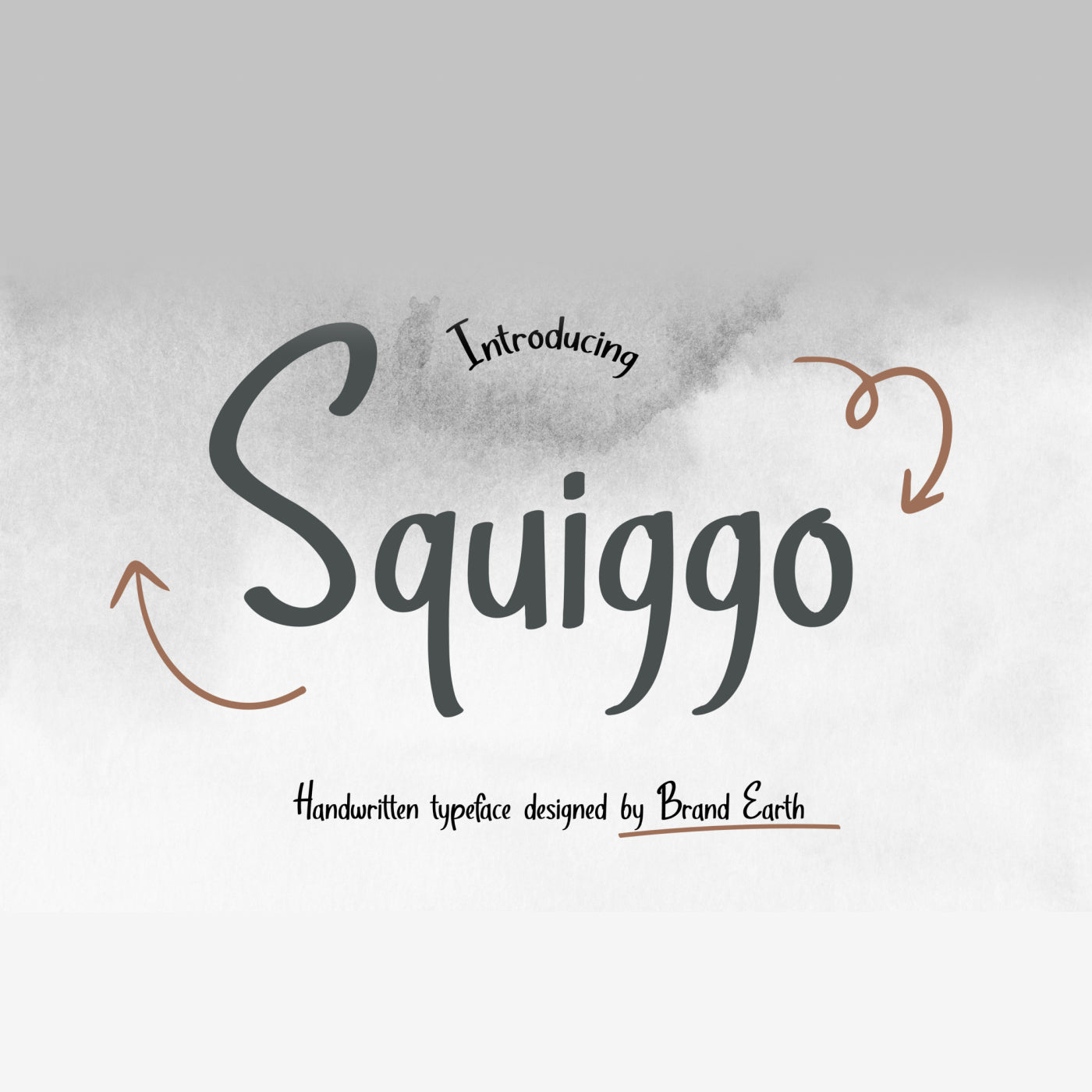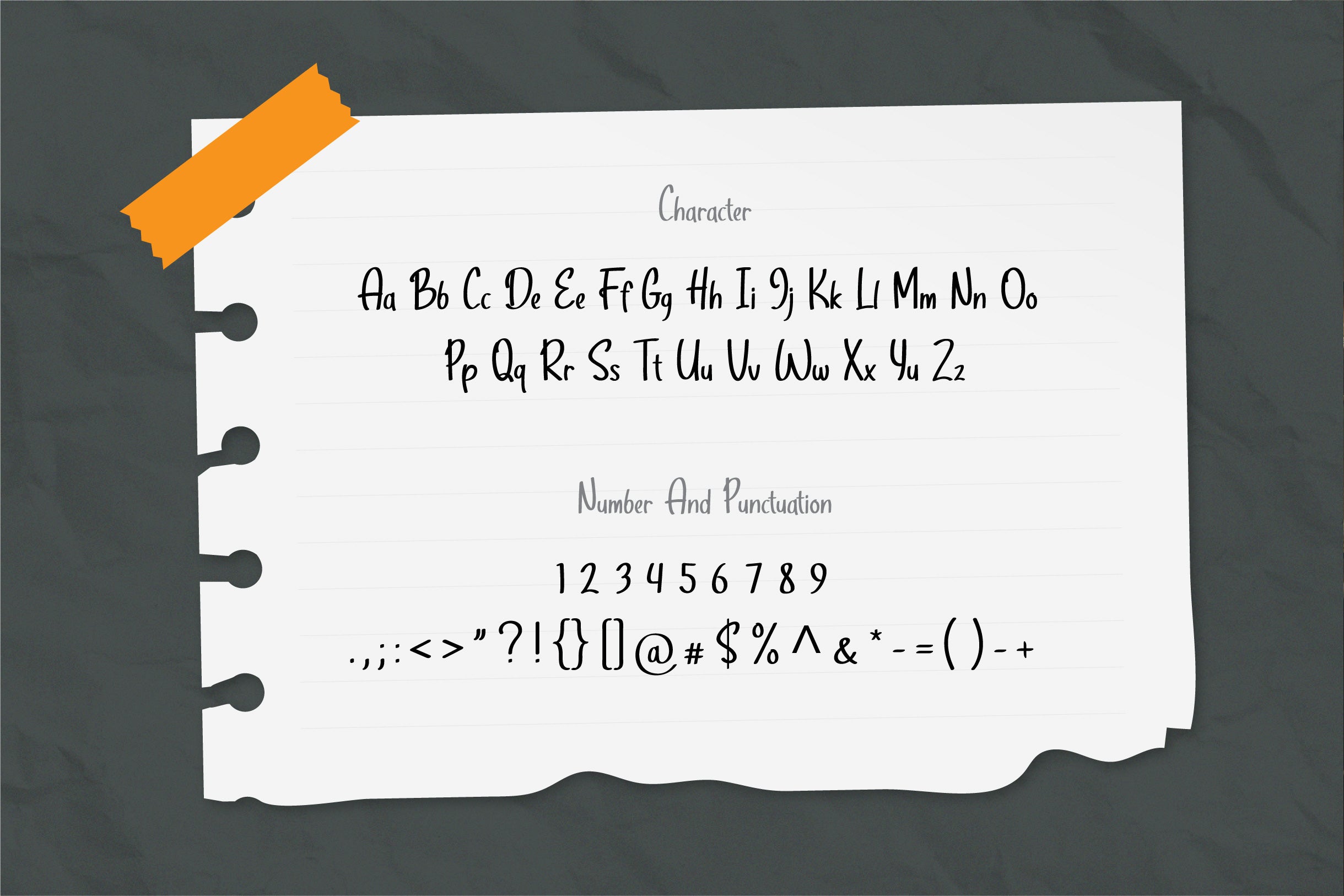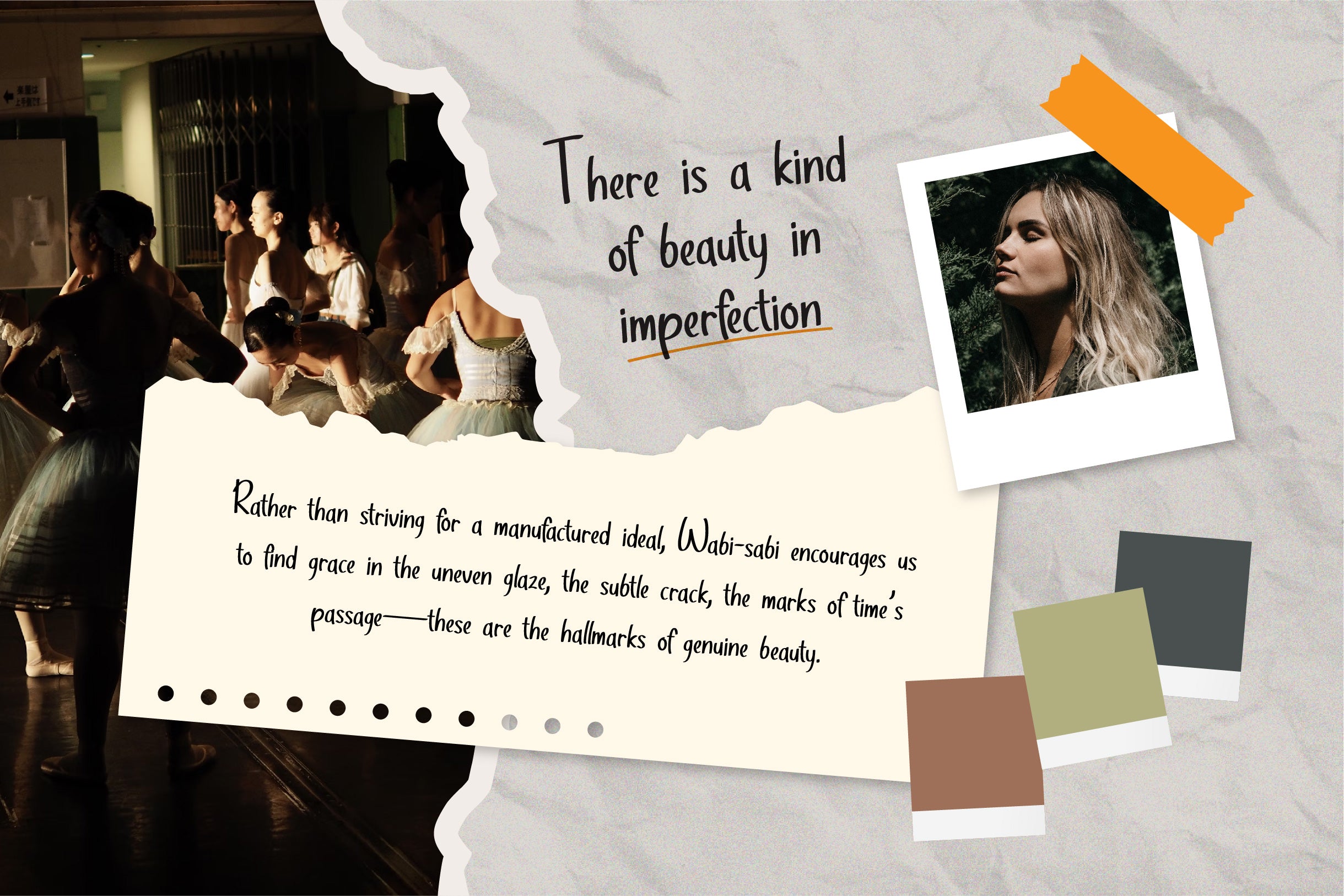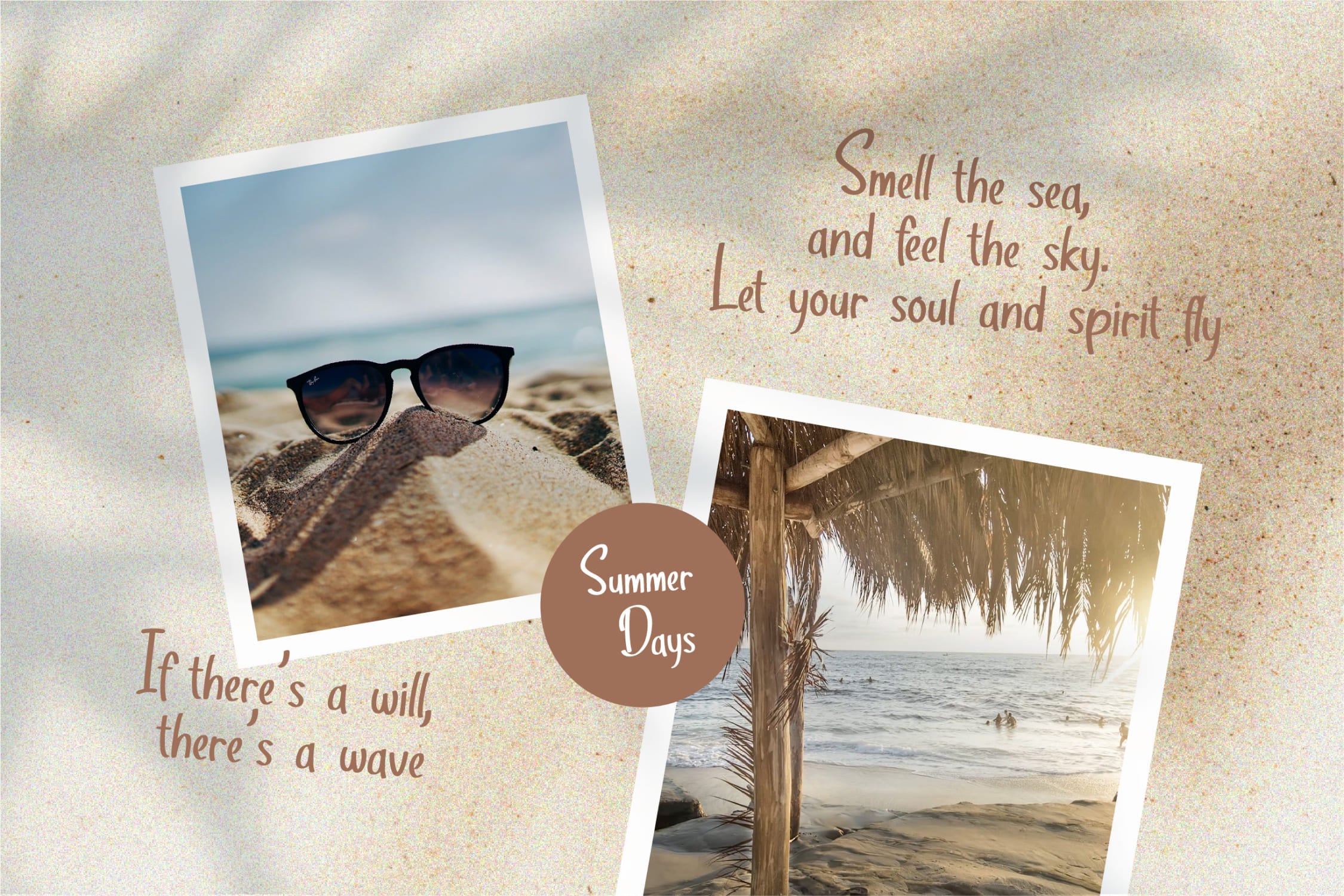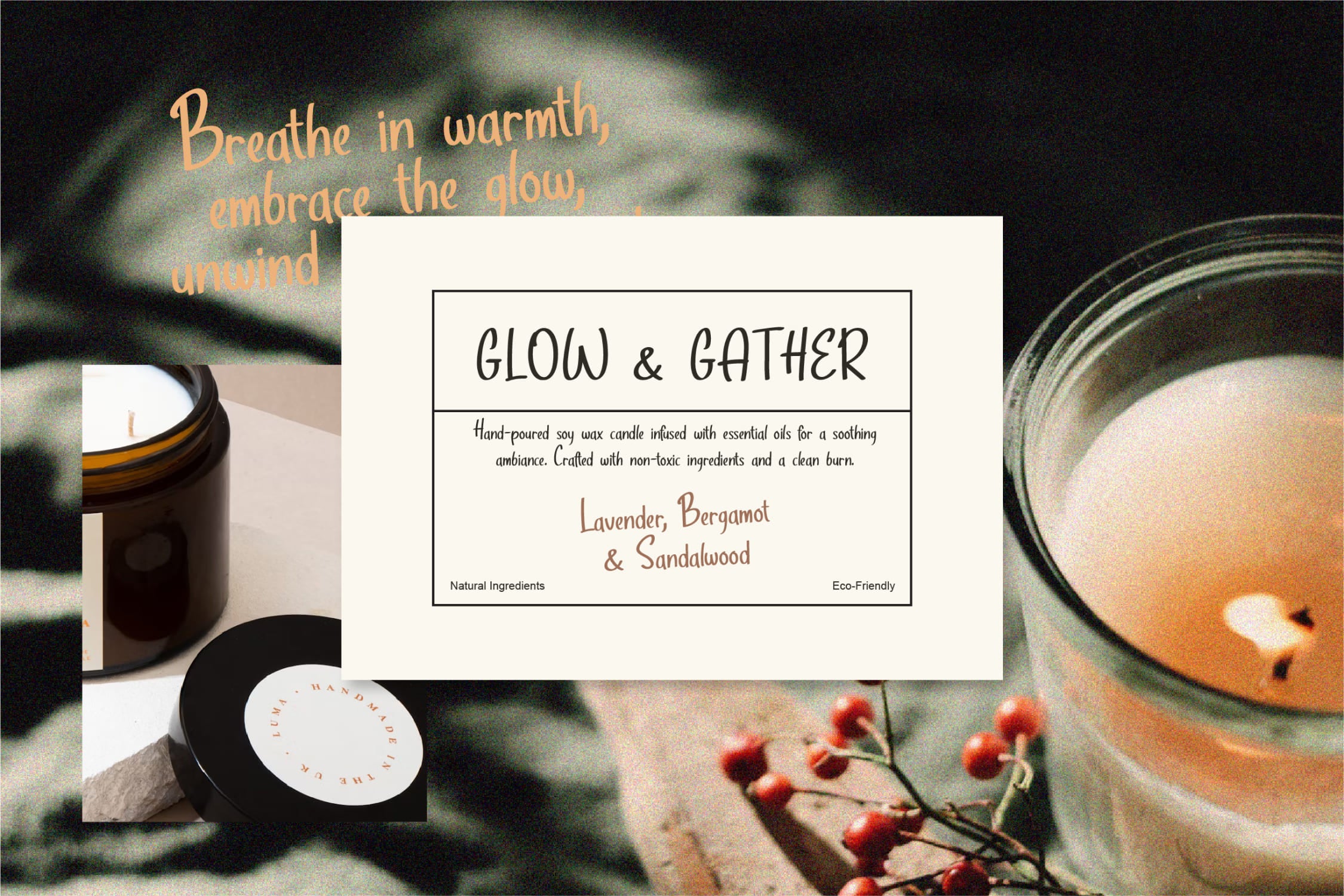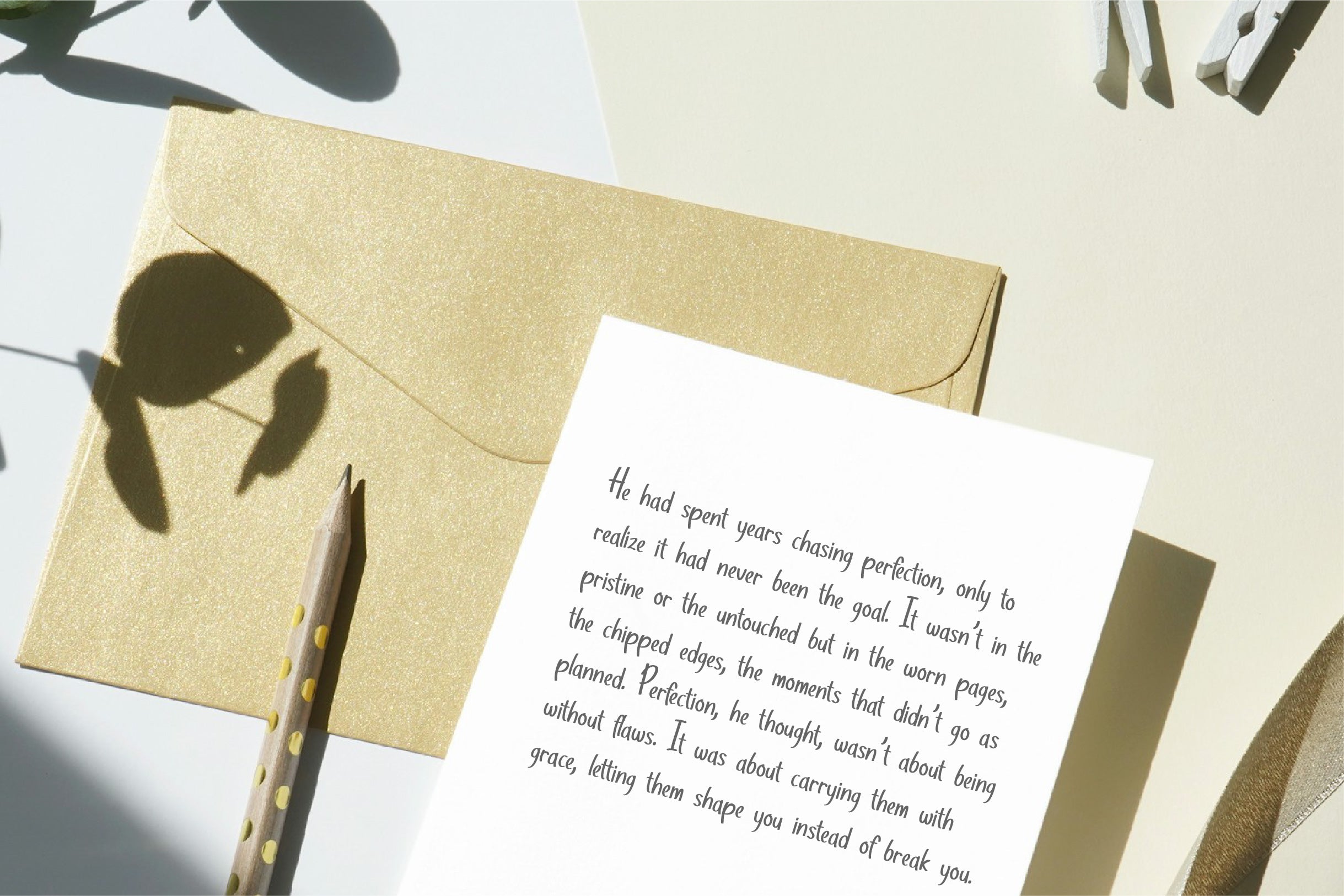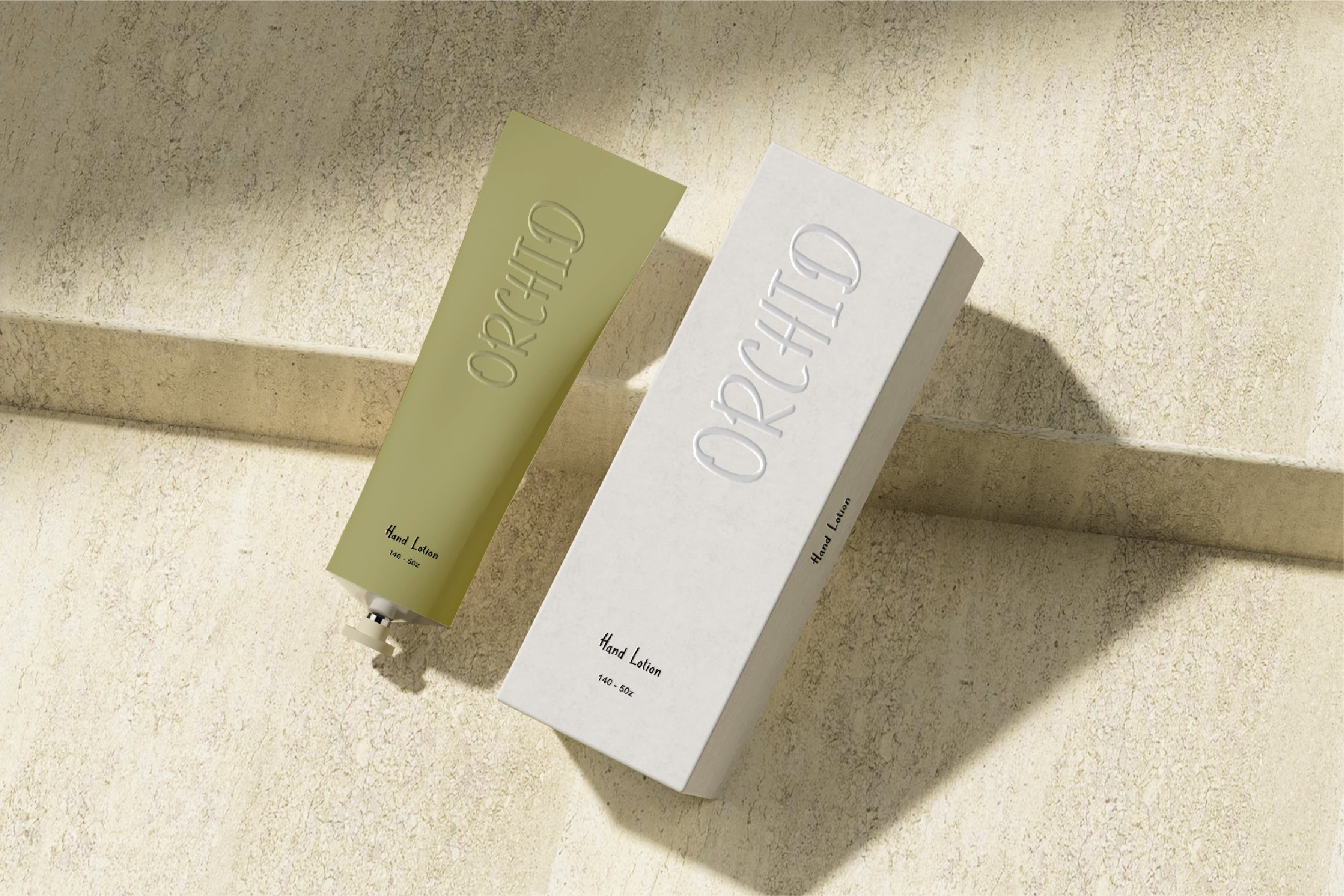
Squiggo Handwritten Typeface Font
Squiggo is a casual handwritten typeface with a flowing, expressive character and naturally irregular letterforms. Its elongated strokes, smooth curves, and distinctive swashes create an authentic hand-drawn appearance while keeping the lettering easy to recognize. The font works especially well when typography needs to feel personal, creative, and relaxed rather than overly polished or formal. Use Squiggo for branding, signature-style logos, social media artwork, packaging, invitations, posters, quotes, apparel, and other designs where a human touch can make the message more memorable.
Squiggo is a casual handwritten typeface featuring irregular letterforms, elongated strokes, and swashes, available in TTF, OTF, and WOFF formats. It includes uppercase and lowercase letters, numerals, and punctuation.